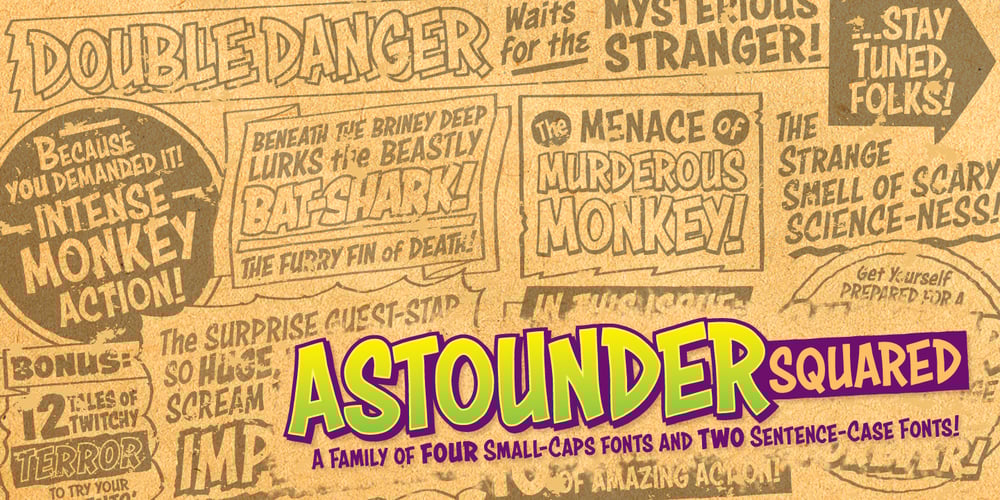
Astounder Squared BB Font Family was designed by Nate Piekos and published by Blambot. Astounder Squared BB contains 14 styles and family package options. Astounder Squared BB is a family of four small caps fonts and two sentence-case fonts inspired by comic book cover lettering of the 70s. The set comes with European characters and some interesting opentype autoligatures: In the small caps versions you can type TH+ and th+ to get an H that scoots under the T, and you can type ?+ or !+ to get shorter punctuation to match the height of the lowercase caps. In the sentence-case versions, you can type E+ or e+ to get a script E. The companion set to Astounder Squared BB is Astounder Round BB…collect ‘em all! Notes: A font family on MyFonts.com can contain an unlimited number of styles.